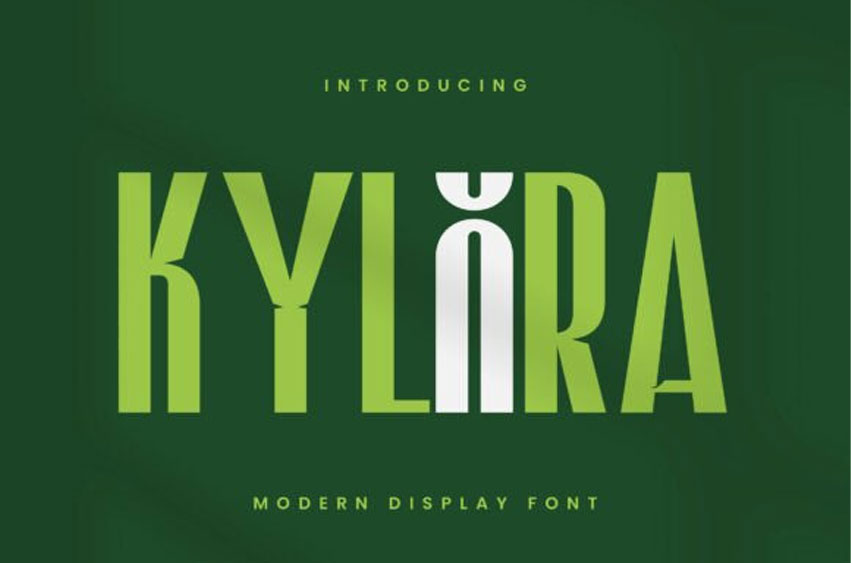
Kylora Font
Kylora Font Elevate your design stature with KYLORA, an audaciously modern display font. KYLORA boasts high-rise proportions combined with angular geometric outlines, resulting in an extraordinary avant-garde character. It’s a blend of elegance meeting futurism, where tapered letterforms intersect with sharp bends and accentuated glyphs, yielding a font that breathes sleekness, confidence, and sophistication.
KYLORA is the perfect choice for designers aiming to stamp a unique signature on their designs. Its lean spacing, coupled with an elongated vertical rhythm, gives it a striking visual appeal that pushes to the forefront of any composition. Each character has been ingeniously crafted with a harmonious blend of minimalism and complexity, making it suitable for modern branding and artistic editorial undertakings.
KYLORA is a multilingual marvel, complete with upper and lowercase letters, numbers, punctuations, symbols, and meticulously designed accents for cross-language consistency. Its stunning versatility means it fits effortlessly into titles, headlines, posters, logos, packaging, social media graphics, and even motion graphics.
Whether it’s for an attention-grabbing visual identity, an out-of-this-world cover design, or chic promotional materials, KYLORA adds a sleek and modern edge to your design canvas.